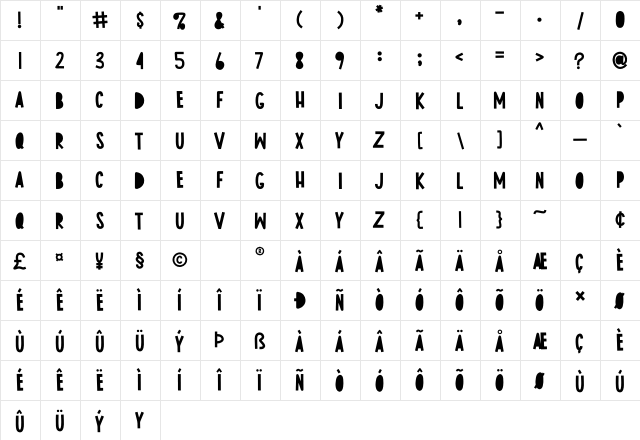
Rockers Bulshit Regular
| Designer | The Docallisme |
Design Context for Rockers Bulshit Typeface
Rockers Bulshit is a composed and adaptable typeface that performs quietly and consistently across a wide range of design contexts.